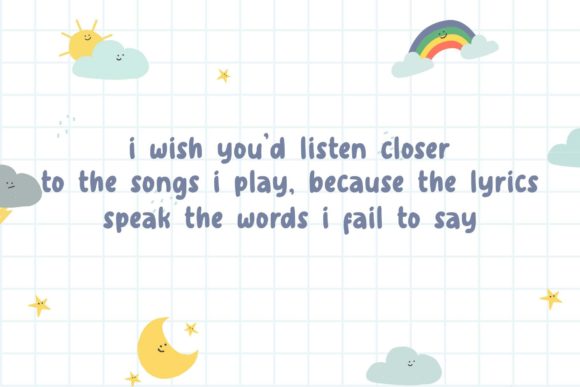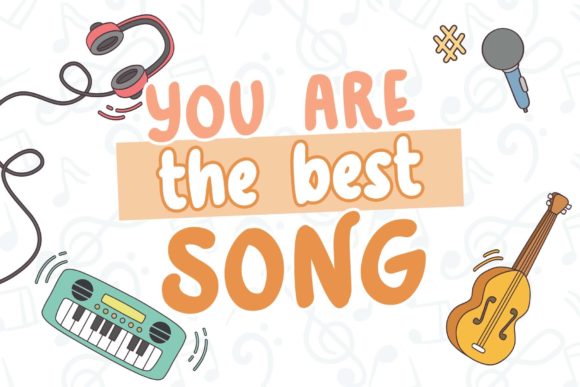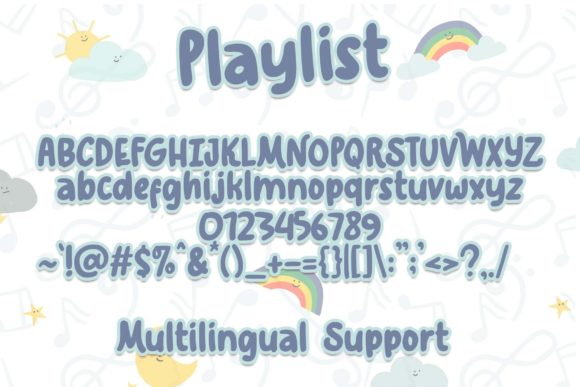
Playlist Font
About Playlist Font
Playlist is a cute, chic and heartwarming handwritten font. Whether you’re looking for fonts for Instagram or calligraphy scripts for DIY projects, this font will turn any creative idea into a true piece of art!